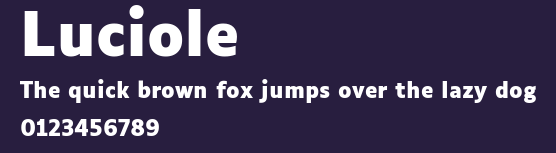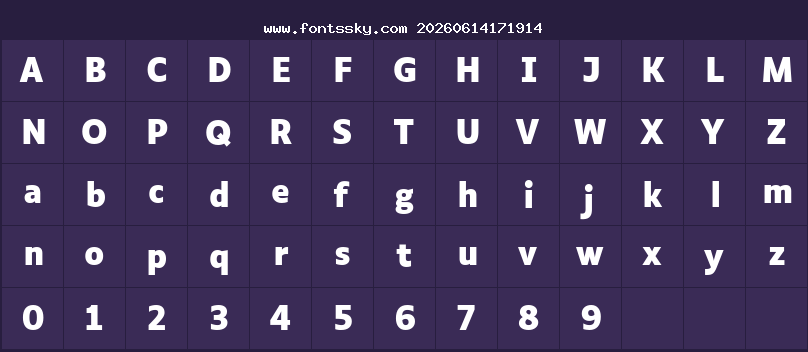
Luciole Preview
• Font Name: Luciole
• Designer: Laurent Bourcellier
About Luciole.ttf
Luciole.ttf is a modern, elegant sans-serif font designed for ultimate readability and visual harmony. Perfect for branding, headlines, web design, and print materials.